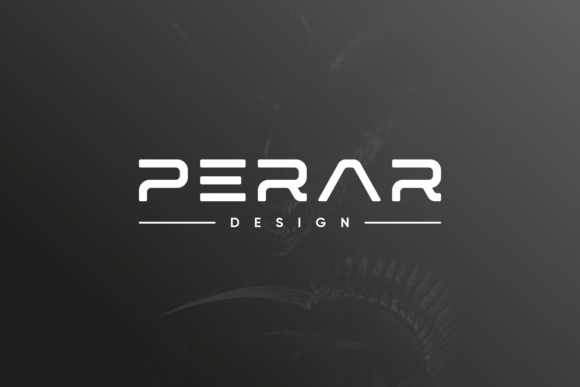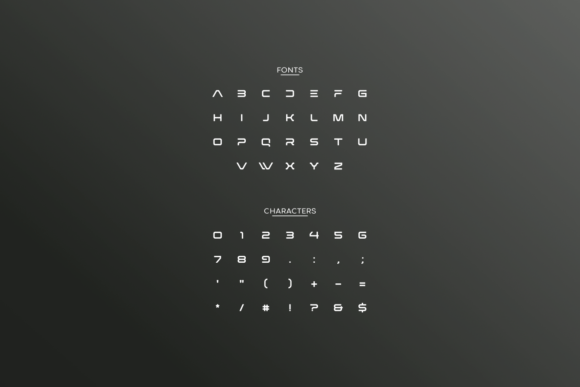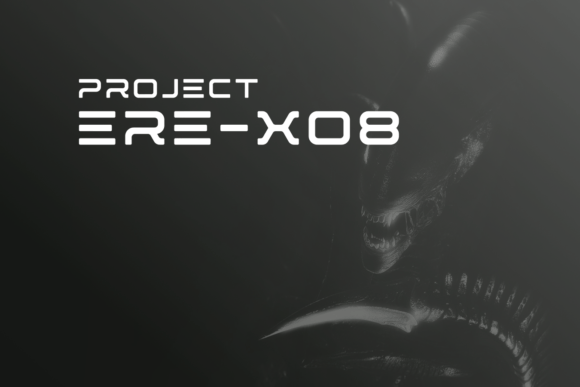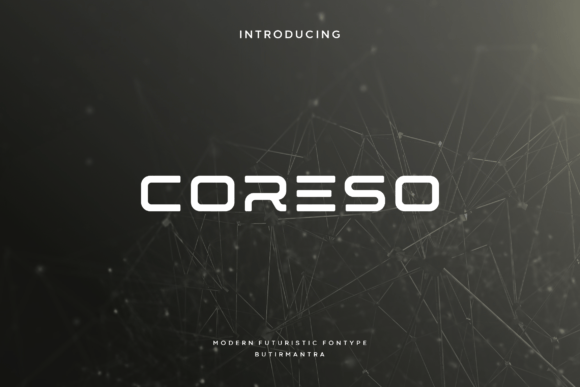
Coreso Font: Elevate Your Designs with a Modern, Elegant, and Futuristic Sans-Serif Font
In the world of typography, fonts play a crucial role in conveying the tone and personality of a design. For designers and crafters looking to add a unique touch to their projects, the Coreso font is an excellent choice. This modern, elegant, and futuristic sans-serif font is perfect for a wide range of applications, from web design and business cards to branding and advertising materials.
What Makes Coreso Font Stand Out?
Coreso is a carefully crafted font that boasts a distinctive and futuristic aesthetic. Its clean lines, geometric shapes, and minimalist approach make it an ideal choice for designers seeking a modern and sophisticated look. The font’s elegant and refined features ensure that it can be used in a variety of contexts, from corporate branding to digital media.
Key Features of Coreso Font
- Modern and Futuristic Design: Coreso’s sleek and contemporary design makes it perfect for projects that require a cutting-edge look.
- Elegant and Refined: The font’s elegant features ensure that it can be used in a wide range of applications, from luxury branding to digital media.
- Highly Versatile: Coreso is suitable for use in various design projects, including web design, business cards, brochures, and more.
- Easy to Read: The font’s clear and legible design ensures that it is easy to read, even at small sizes.
Use Cases for Coreso Font
Coreso’s versatility makes it an excellent choice for a wide range of design projects. Here are some examples of how you can use this font:
- Web Design: Use Coreso to create modern and responsive websites that showcase your brand’s personality.
- Business Cards: Add a touch of elegance and sophistication to your business cards with Coreso’s refined design.
- Branding and Advertising: Use Coreso to create eye-catching branding and advertising materials that stand out from the crowd.
- Digital Media: Coreso is perfect for use in digital media, including social media graphics, email newsletters, and more.
Tips for Using Coreso Font Effectively
To get the most out of Coreso, here are some tips for using the font effectively:
- Pair with Other Fonts: Experiment with pairing Coreso with other fonts to create a unique and visually appealing typography combination.
- Use in Headings and Titles: Coreso is perfect for use in headings and titles, where its modern and elegant design can make a bold statement.
- Adjust Font Sizes and Weights: Experiment with different font sizes and weights to create visual hierarchy and add depth to your design.
In conclusion, Coreso is a modern, elegant, and futuristic sans-serif font that is perfect for designers and crafters looking to add a unique touch to their projects. With its versatile design, Coreso can be used in a wide range of applications, from web design and business cards to branding and advertising materials. By following the tips outlined above, you can use Coreso to elevate your designs and create stunning visual experiences.